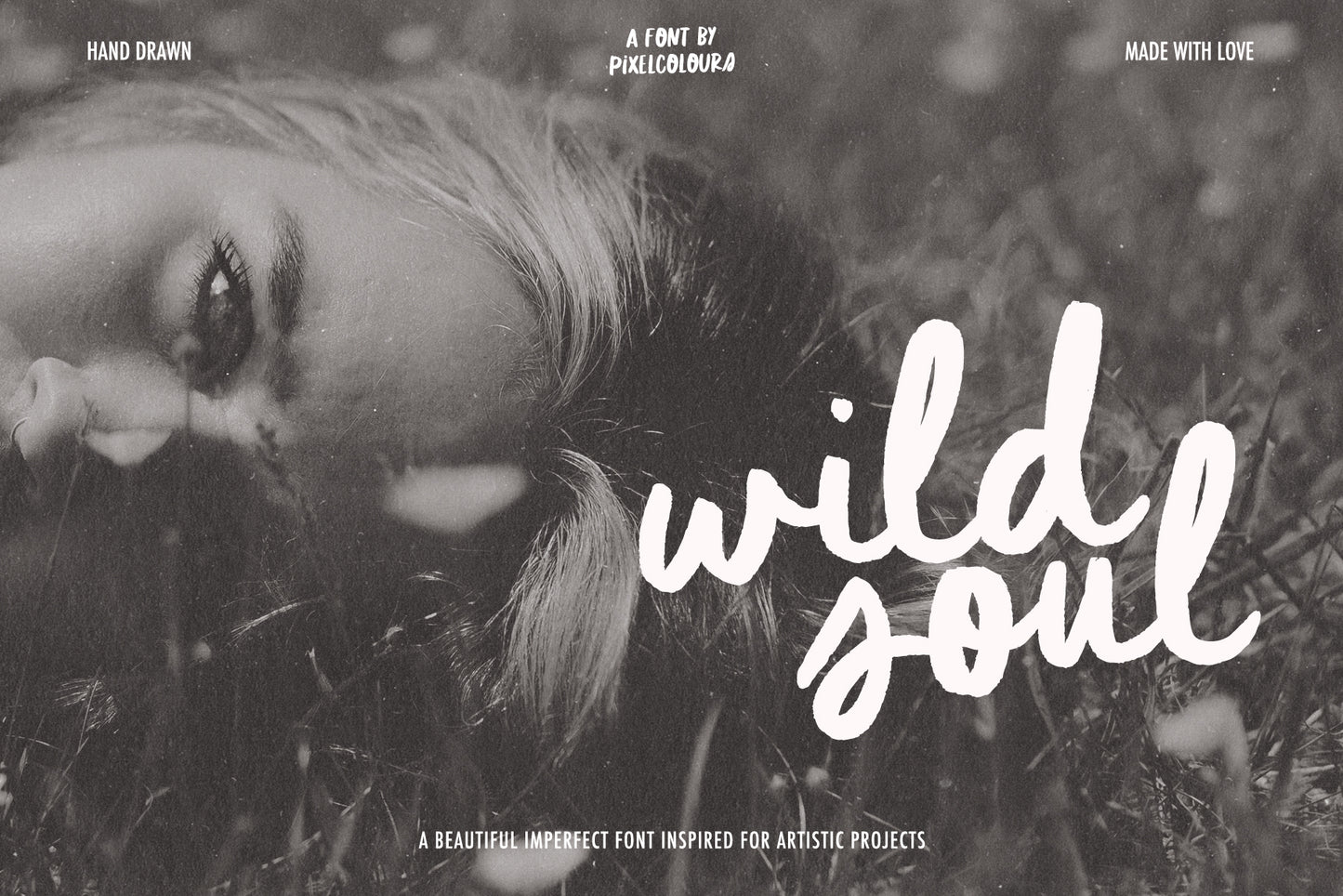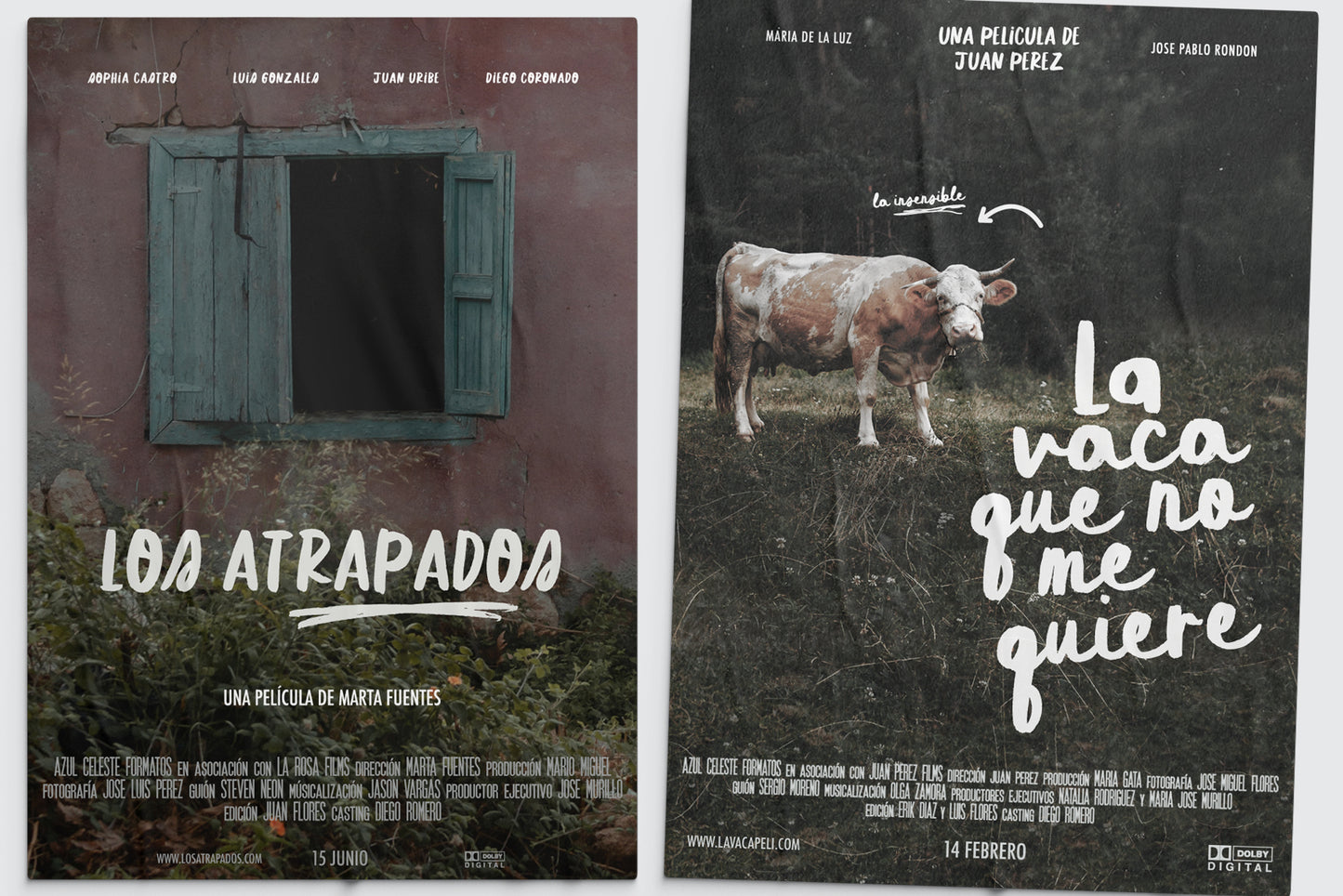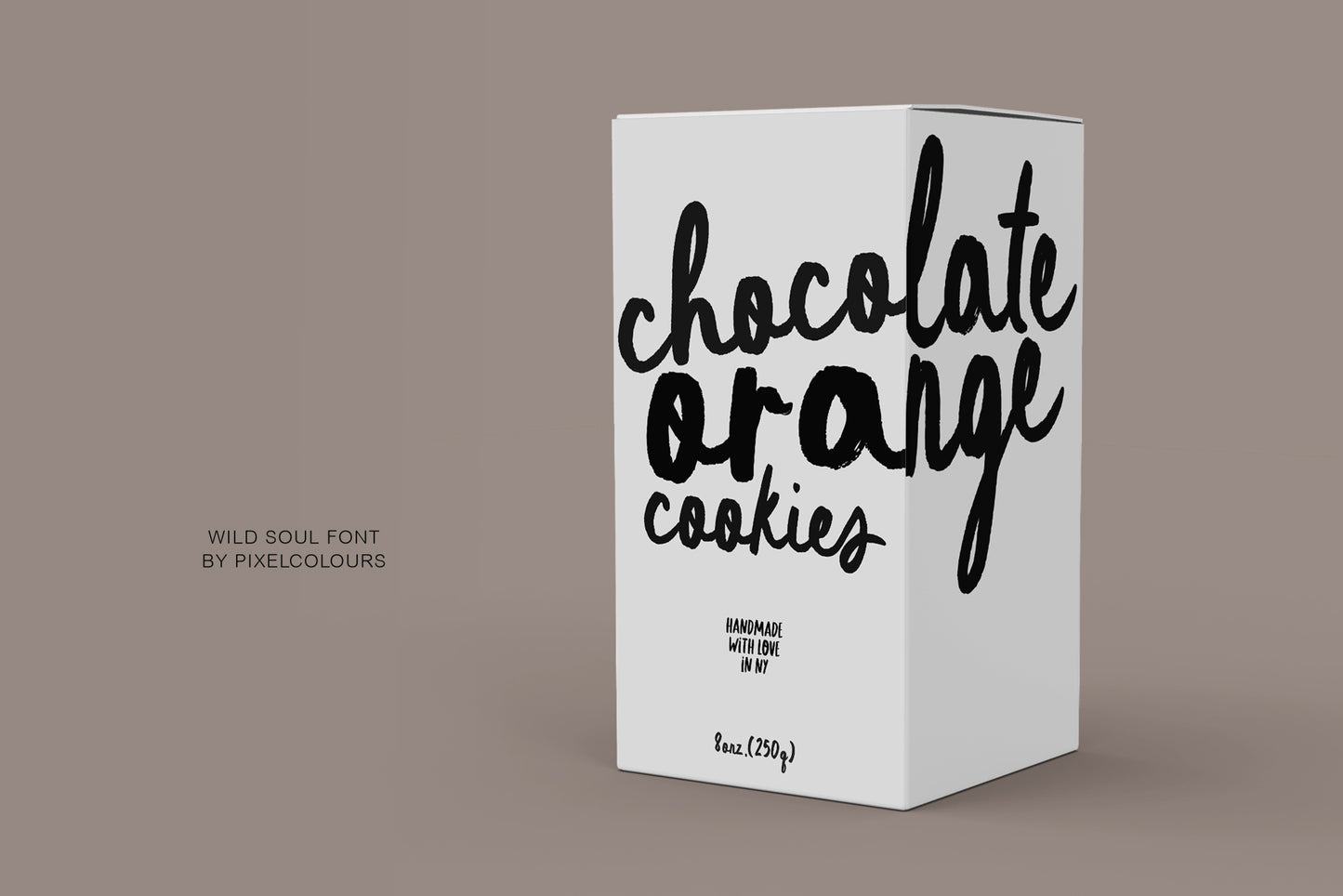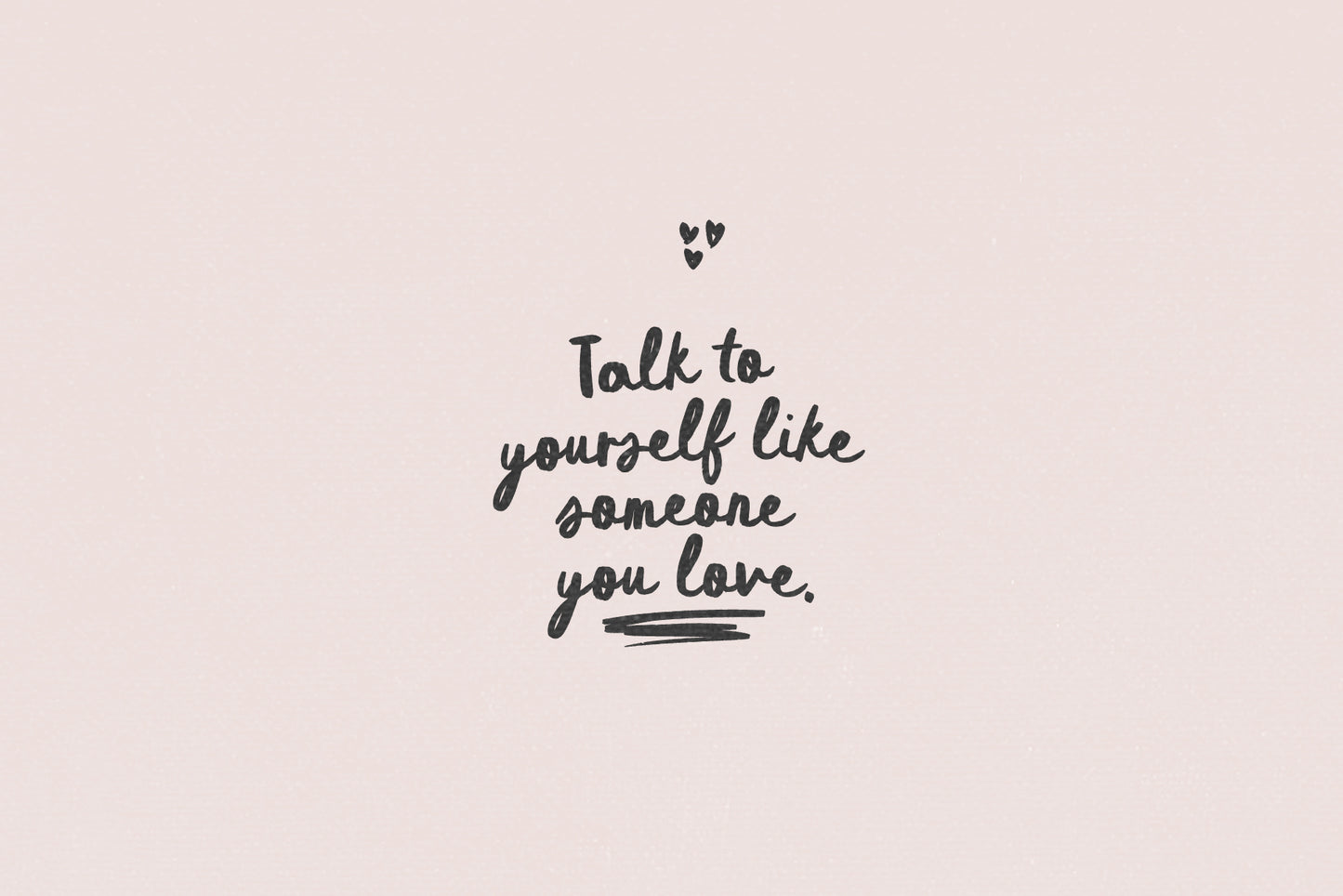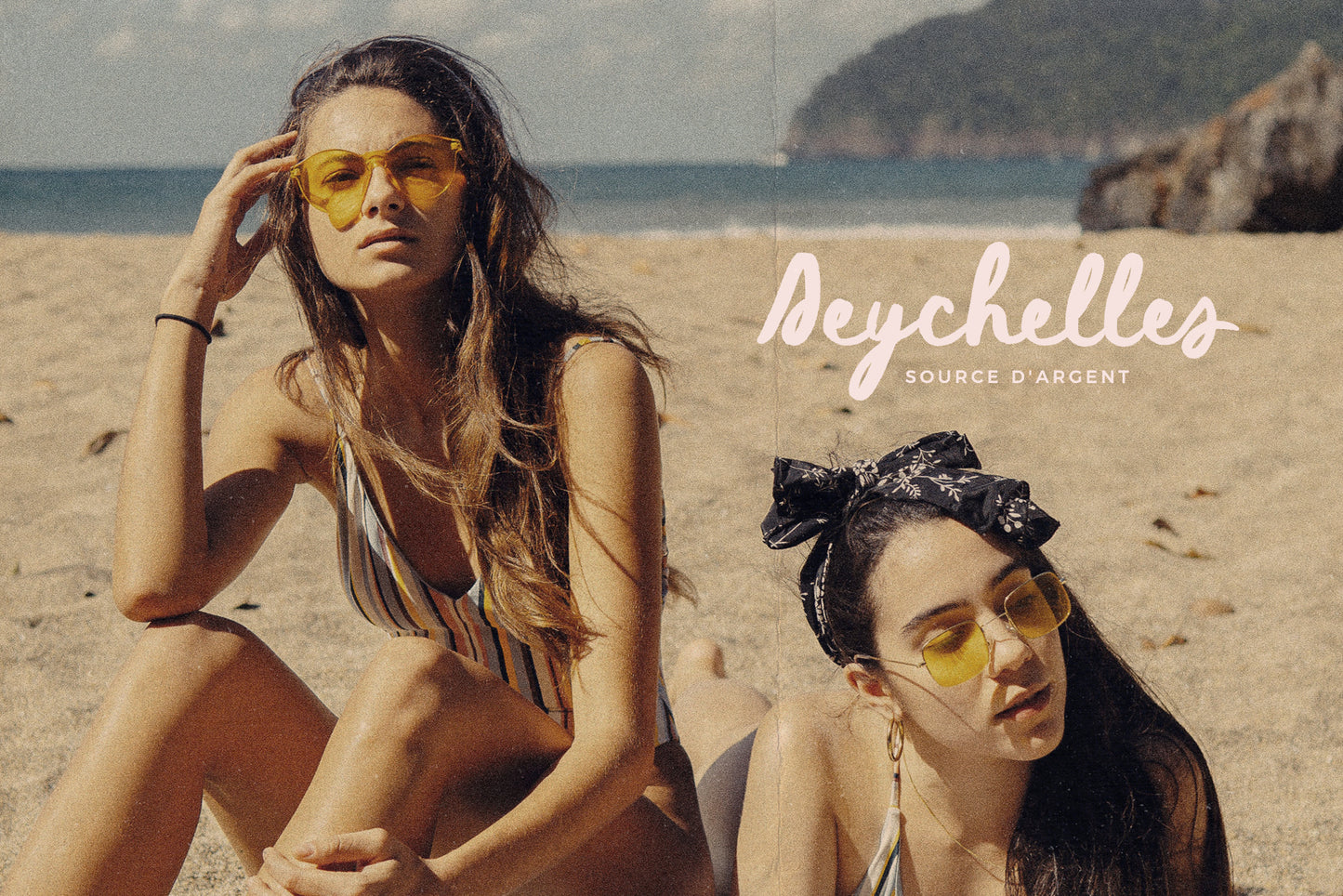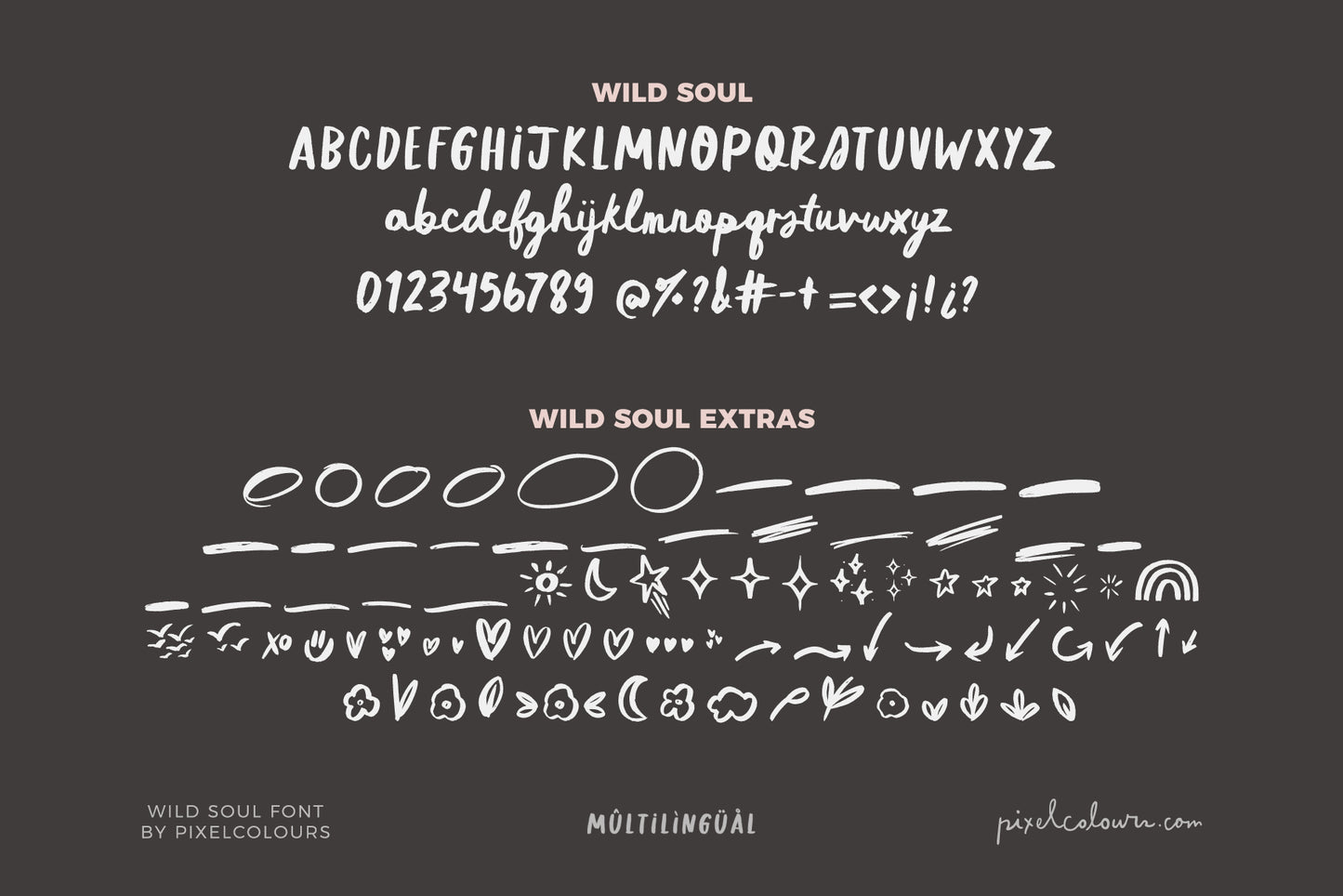
Wild Soul Script Brush Font Duo
Wild Soul is a handwriting font duo designed for projects with a hand drawn, organic vibe. Imperfect with a subtle texture, great for artsy designs! This artistic font is perfect for product packaging, movie posters, art posters, quotes, logo design, etc. Includes a dingbats font full of extra doodles for decorating texts or creating beautiful quotes for social media posts. This font pair is a must have if you love handwritten fonts!
- Wild Soul: a hand drawn script font with imperfect lines and texture
- Wild Soul Extras: a dingbats font full of doodles